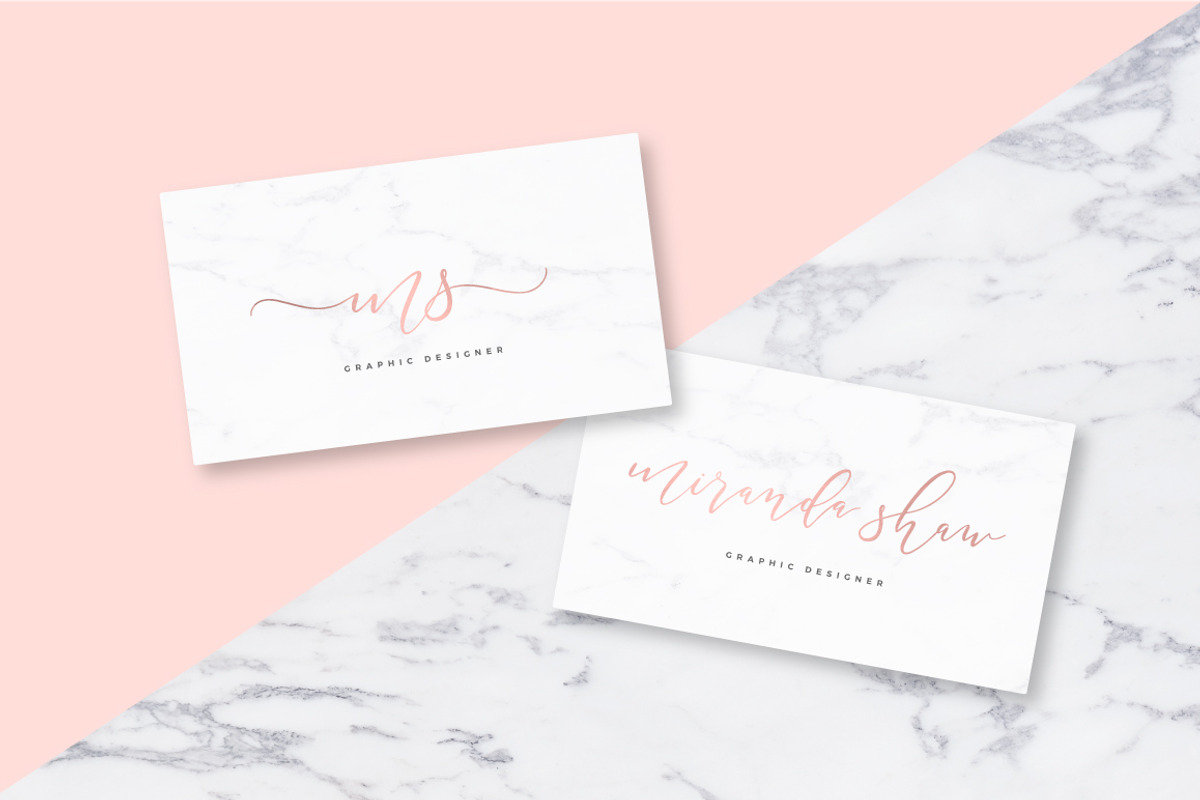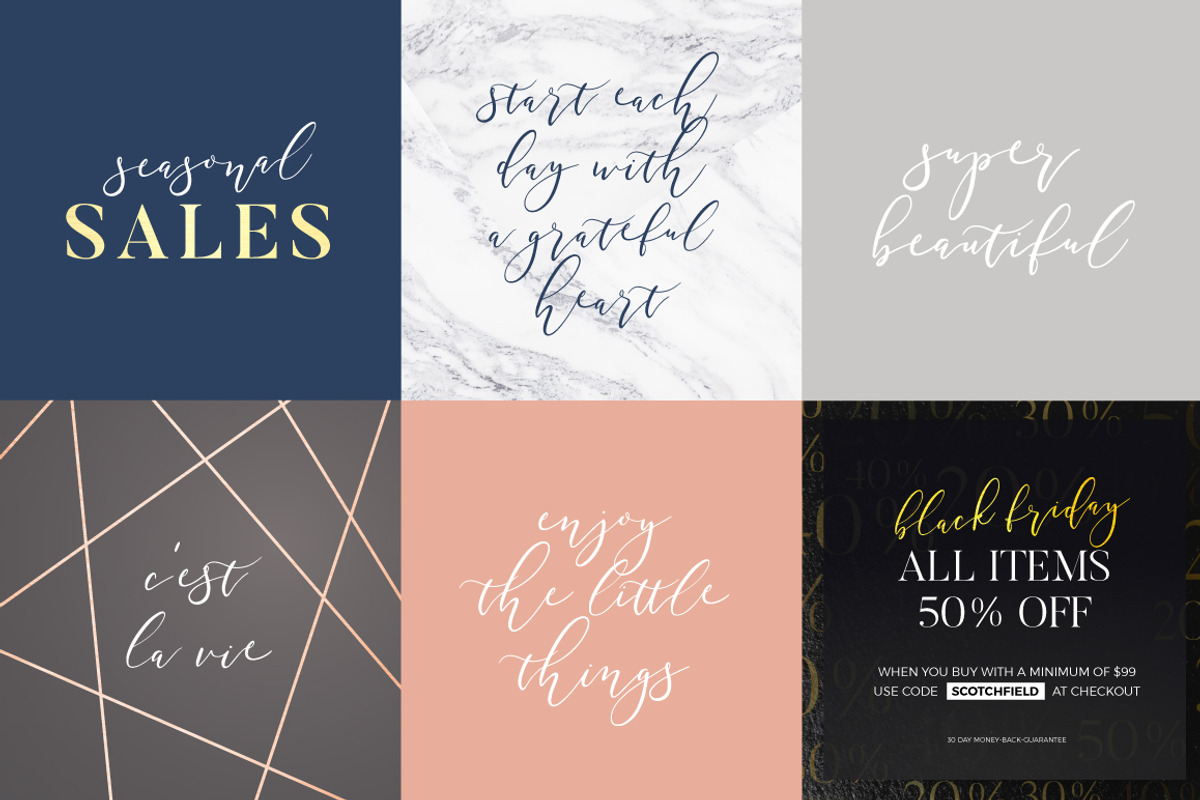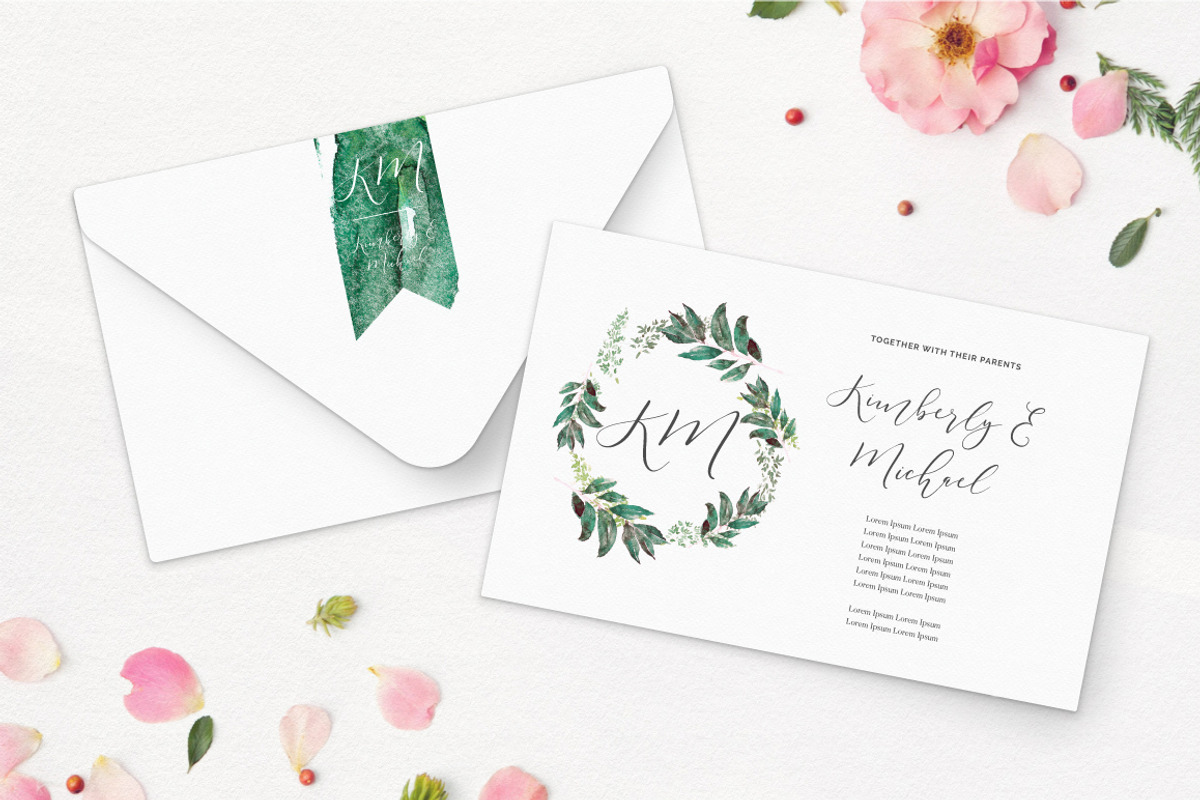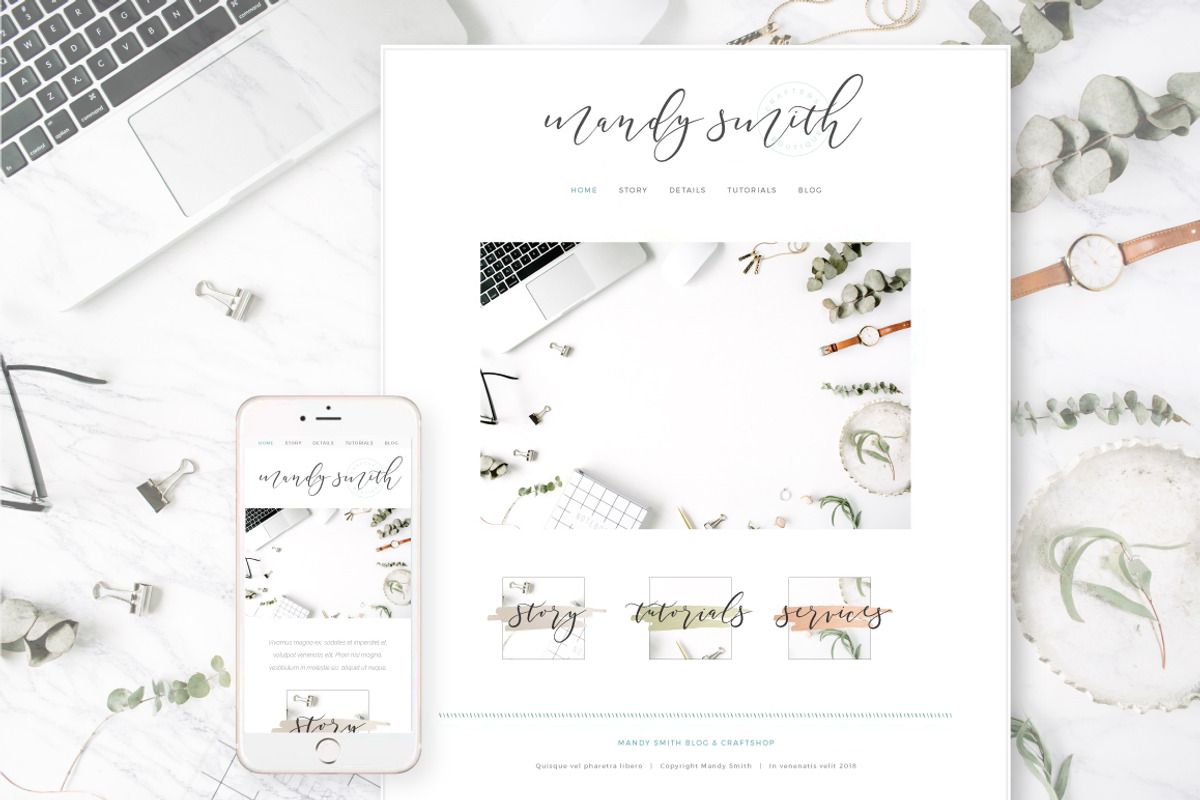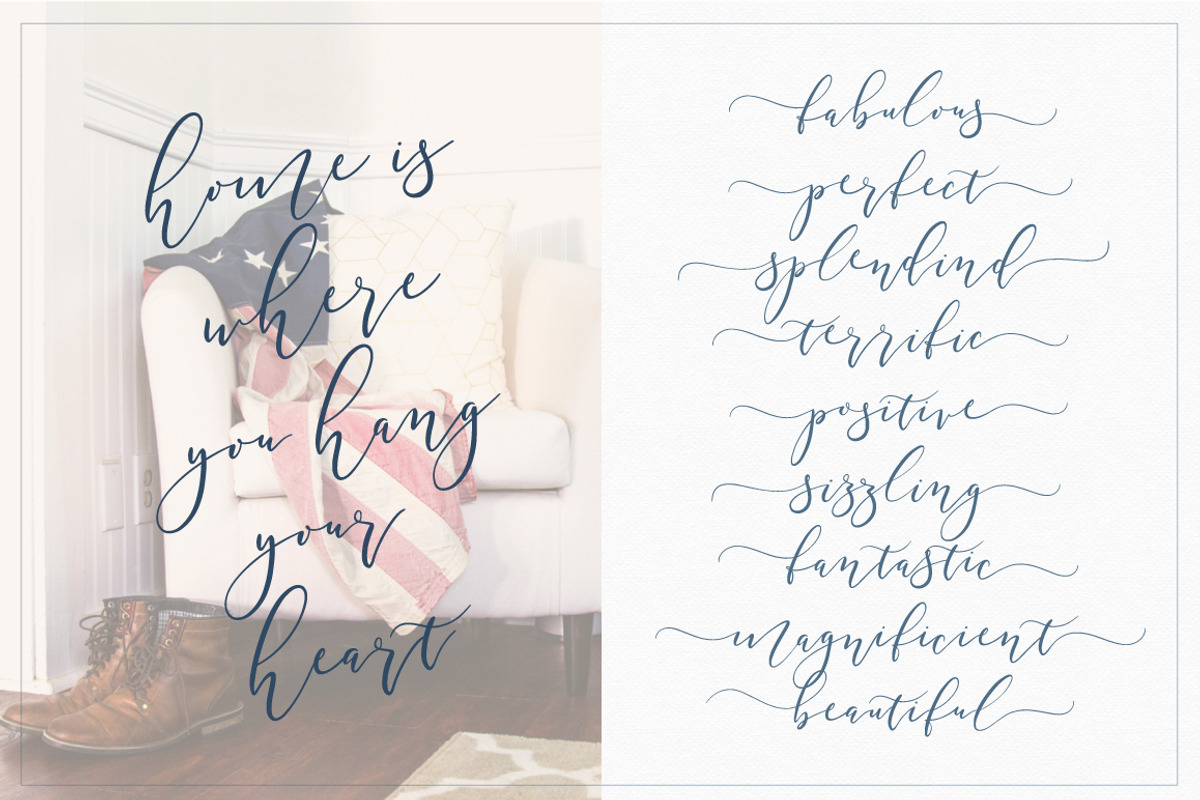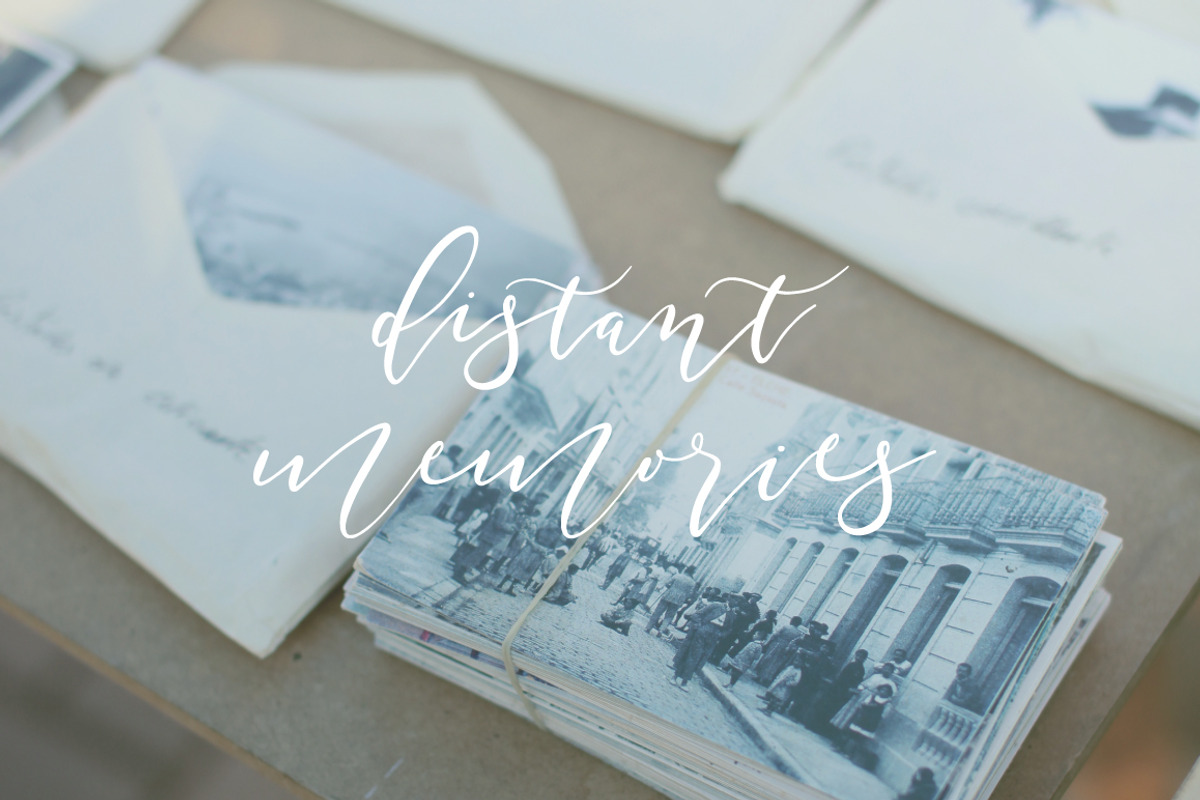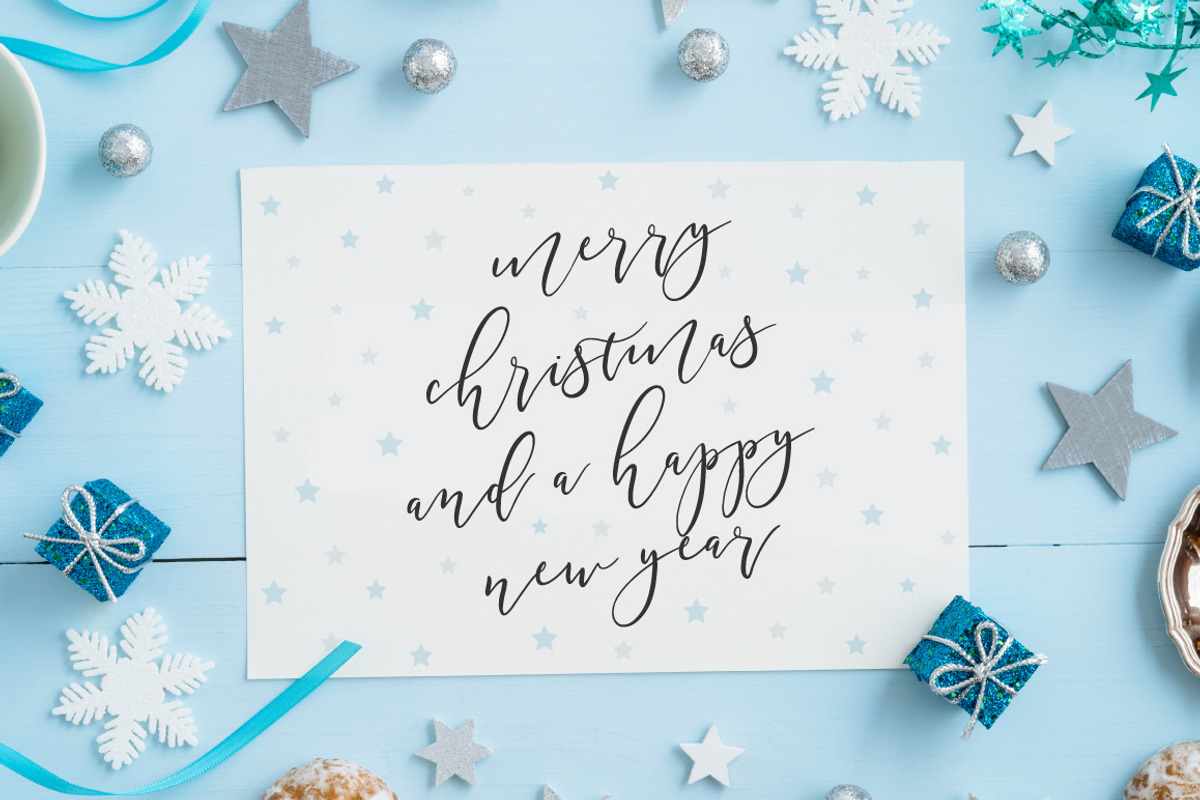
Southfield Typeface
Southfield Typeface by Mats-Peter Forss is a font selected for branding, posters, packaging, typography.
- Just jump from ALT1 to ALT2 and vice versa to rock your next design :) Southfield includes start and end swashes for each main character.
- Southfield Alt1 and Alt2 (2 fonts)- Upper and lowercase characters, numerals, punctuations and a wide language support.
- Southfield Swashes (4 fonts) - Full swashes for upper and lowercase characters to make your design look superbly unique!!
Why Southfield Typeface is worth a look
Southfield Typeface by Mats-Peter Forss fits naturally into Branding, posters, packaging, typography.